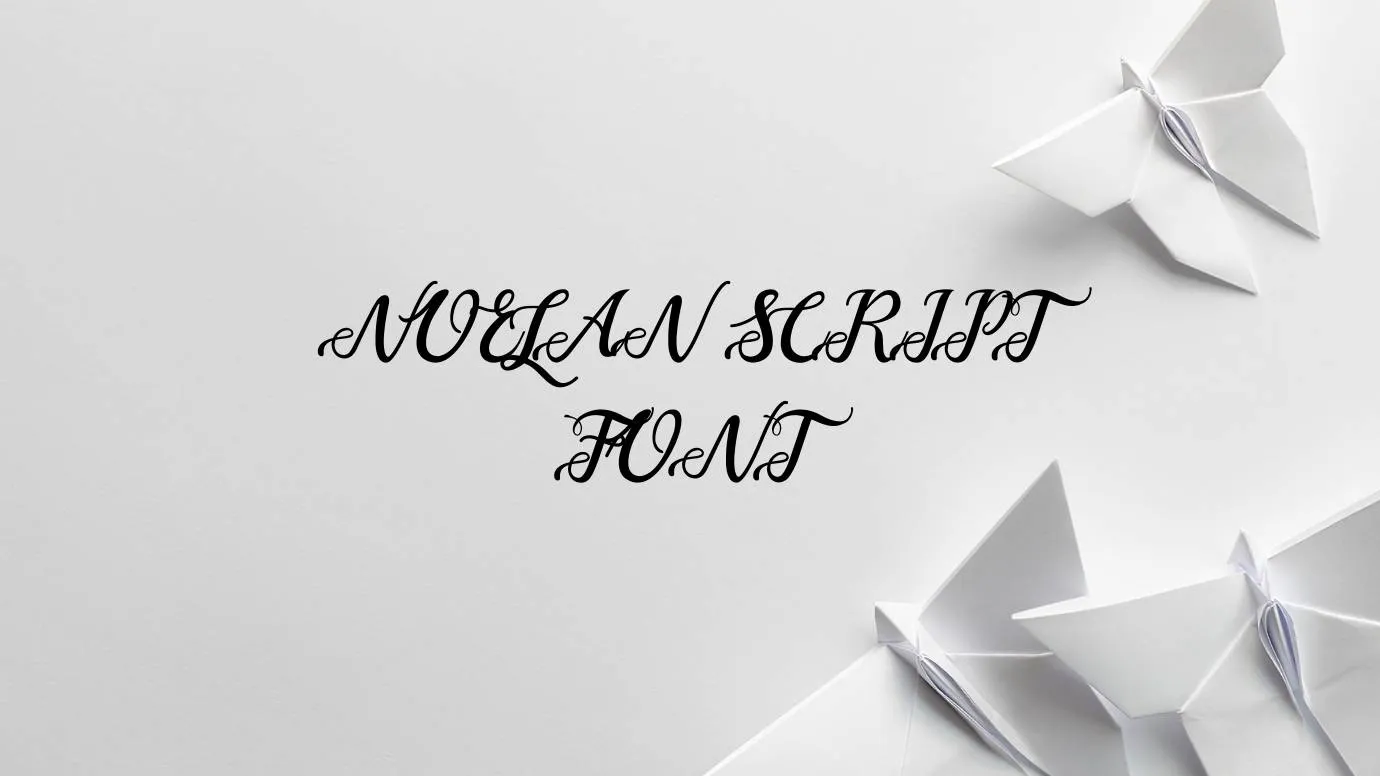
Noelan Script Font Family was designed and shared in 2018 by Ndroadv. This great script typeface features a very soft and smooth look that has many alternates to easily mix and match with each other.
It comprises 4 weights including normal, condensed, italic, and heavy that support extensive languages including Basic Latin, Latin Extended-A, French, Italian and Cyrillic characters.
Noelan Script Font
NameNoelan Script Font
DesignerNdroadv
StyleScript
Date Released2018